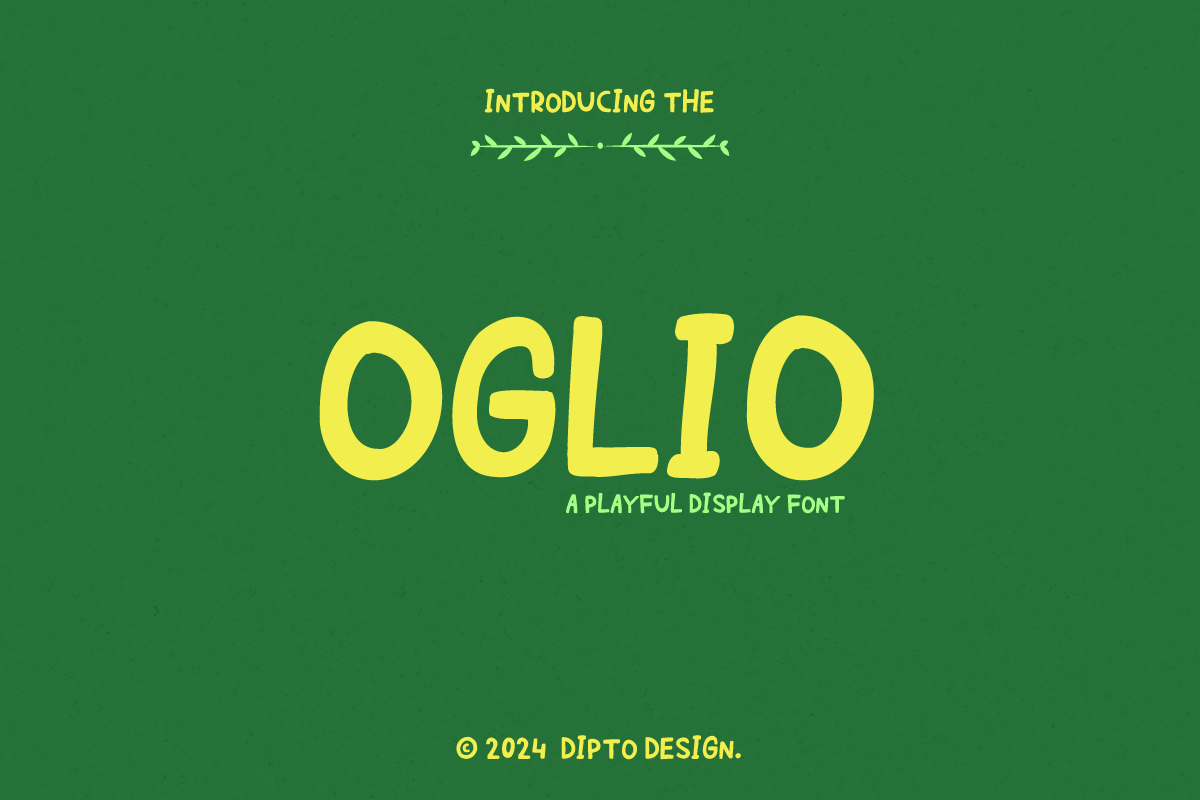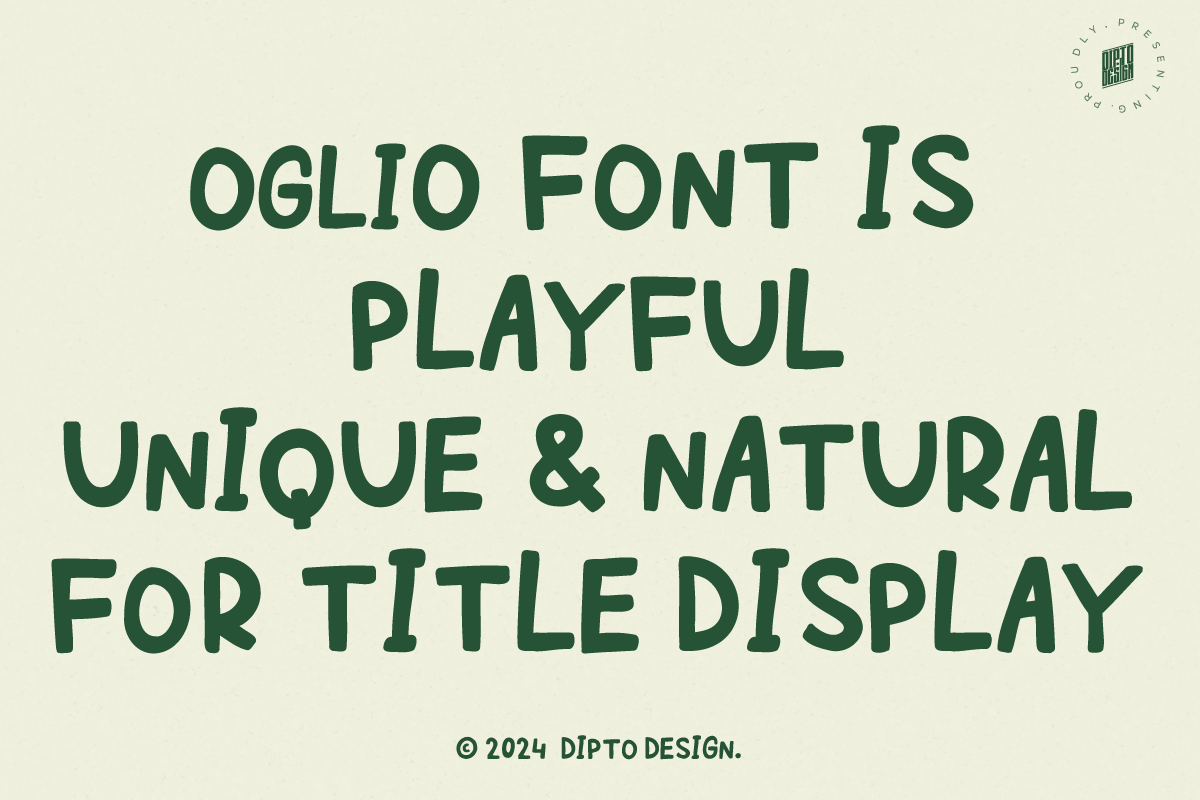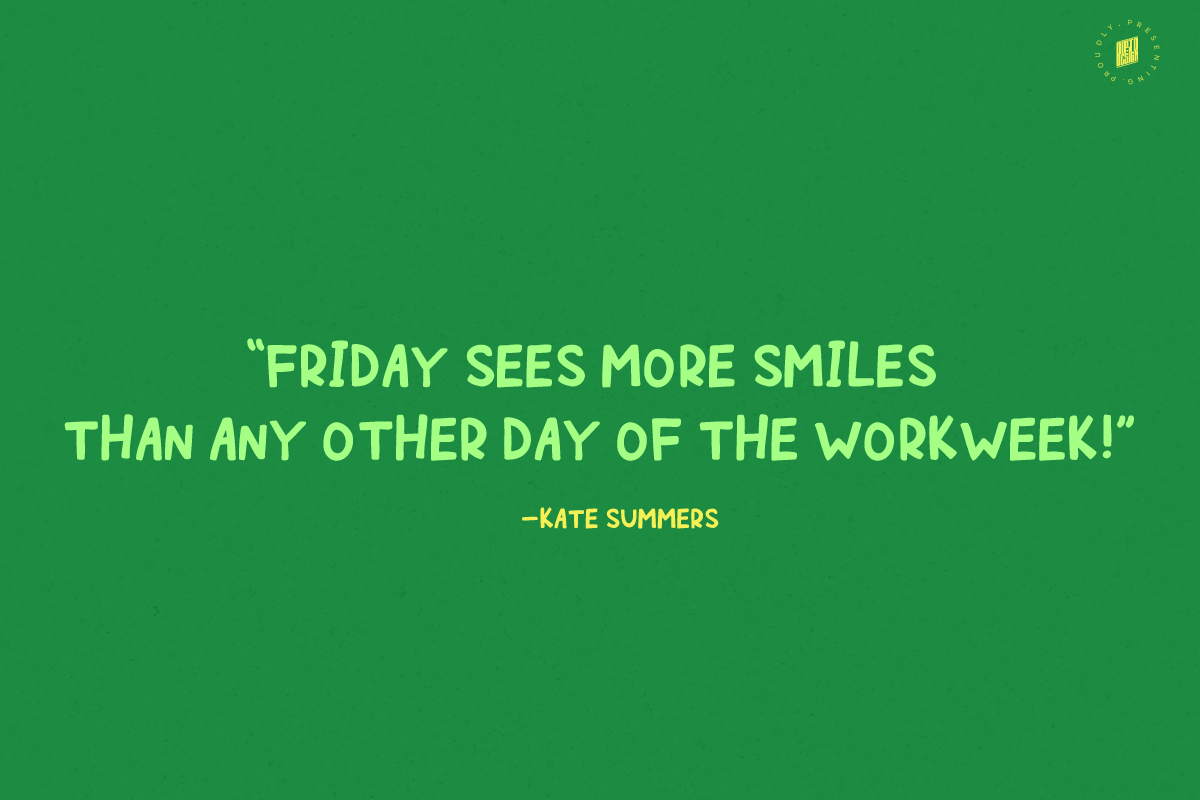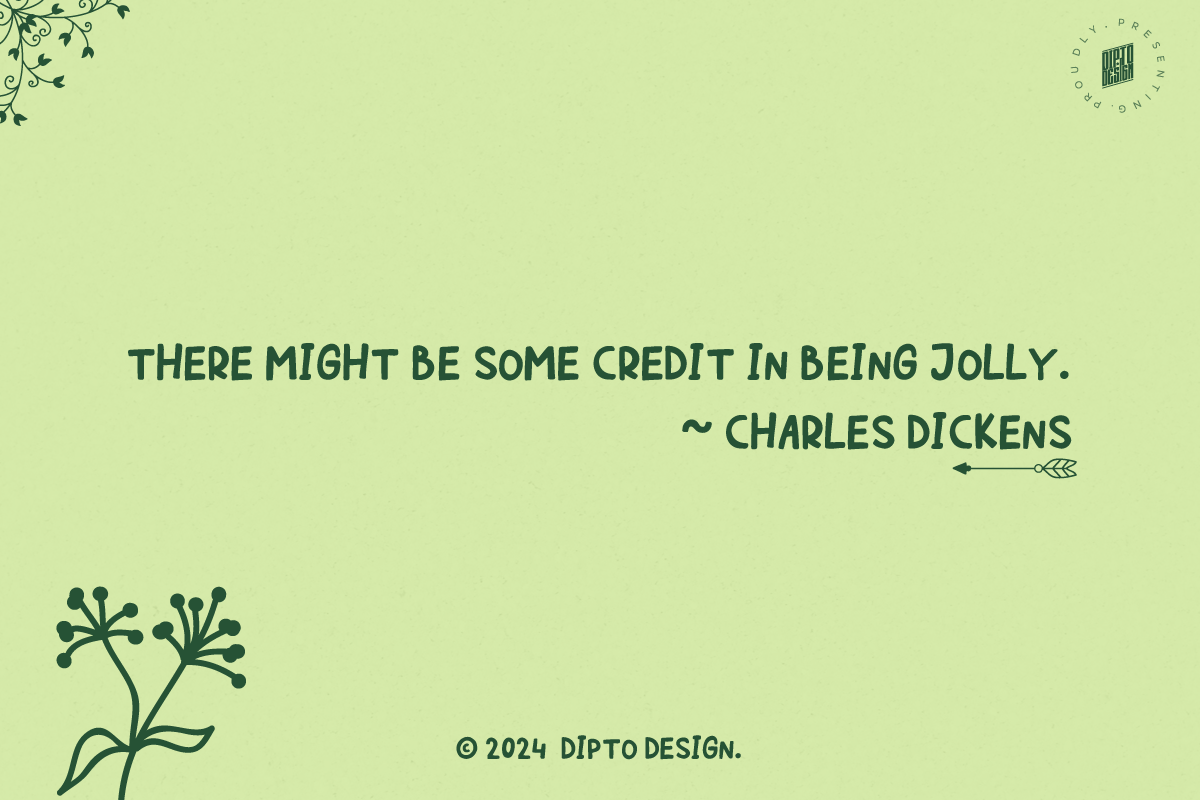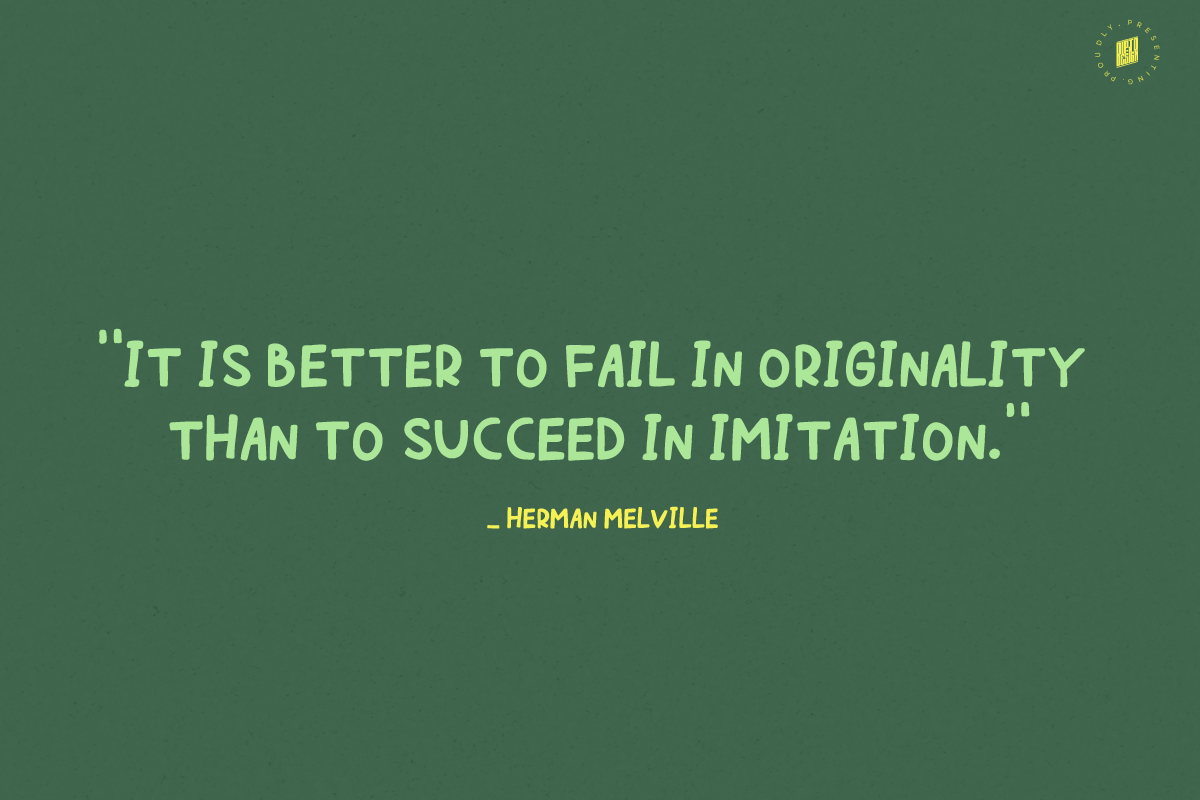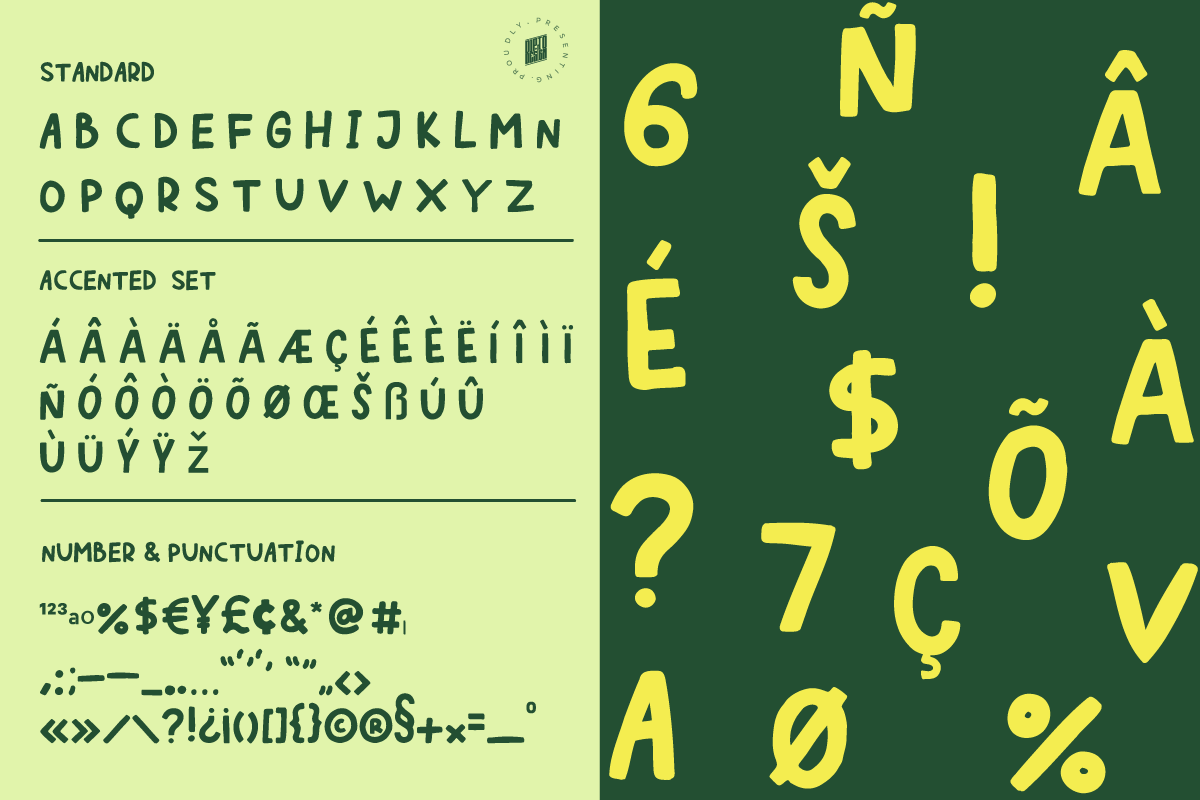
Oglio - A Playful Font
Oglio — where modernity meets elegance. This font is a harmonious blend of flowing curves and sharp edges, creating a dynamic and refined aesthetic. Versatile and distinctive, Oglio makes a bold statement in branding, headlines, and creative displays. Its careful balance ensures legibility without compromising style. Download now to infuse your projects with the transformative power of a font that speaks volumes in every letter.
- Uppercase: Regular
- Lowercase: Regular
- Punctuation Marks and Symbols
- Accented Letter Set
- Multilingual Supported